Selecting the perfect Christmas font can transform your holiday designs from ordinary to extraordinary. As the festive season approaches, the right typeface is essential for capturing the magic and warmth that Christmas brings.
From greeting cards to holiday banners, fonts like those found on Google Fonts or Adobe Fonts can make all the difference.
In this guide, you’ll discover the intricacies of choosing a Christmas-themed font that suits any seasonal project.
Whether you’re crafting a festive invitation or a holiday wallpaper, understanding the subtle nuances of fonts like snowflake fonts or handwritten fonts will elevate your work.
By the end of this article, you’ll not only know what makes a good Christmas font but also how to implement it effectively across various platforms such as Canva and Etsy.
We’ll explore categories like elegant Christmas fonts, retro fonts, and even calligraphy fonts to suit the needs of every graphic designer. Get ready to make your projects shimmer with holiday spirit!
What Is A Good Christmas Font
There are several excellent fonts to consider for Christmas-themed designs, each catering to different styles and preferences. Here are some top recommendations categorized by type:
Classical Fonts
These fonts evoke elegance and are perfect for formal holiday invitations and cards:
- Mountains of Christmas – A favorite for its graceful style.
- French Script – Offers a classic handwritten look.
- Fractur BT – A traditional blackletter font.
- Roundhand BT – Elegant and fluid, ideal for personal touches.
- Monterey BT – A refined choice for sophisticated designs.
Modern Fonts
For a contemporary twist, these sans-serif fonts provide a clean and festive vibe:
- Avellino – Sleek and modern.
- Bebas Neue – Bold and impactful.
- Ringer Bold – A strong, modern choice.
- Stela UT – Versatile for various designs.
Fun and Kid-Friendly Fonts
These playful fonts are great for children’s activities and festive decorations:
- Carver ICG – Bold and fun.
- Hangup – Whimsical and easy to read.
- Terry Junior – Kid-friendly and engaging.
- Backpack – A casual, handwritten style.
- Rebus Script 2010 – Fun and decorative.
Festive Fonts
These fonts capture the holiday spirit with whimsical designs:
- SnowCap BT – Evokes winter wonder.
- Curlz MT Std – Playful and festive.
- Sunshiney – Bright and cheerful.
- Many Weatz – Fun and quirky, perfect for holiday themes.
Free Options
If you’re looking for free fonts, consider:
- Gingerbread – A charming serif font with a festive feel.
- Candy Cane – Designed to resemble the classic treat.
- Dear Santa – A childlike handwritten style, perfect for letters.
- Christmas/Flakes – Ornamental and ideal for headlines.
Christmas Fonts
Choosing the right Christmas font is like finding the perfect garnish for a festive feast. It needs to evoke the spirit of the season, capturing the essence of warmth, joy, and festivity in each letter.
A good Christmas font often carries distinctive features such as playful curves, elegant swirls, or even little snowflake ornaments.
Festive Typography
When looking for a typeface, festive typography is crucial. Think about retro Christmas fonts or script fonts for Christmas.
These fonts usually incorporate whimsical elements like candy canes or reindeer to instantly evoke holiday vibes.
Detailed Elements
- Decorative Christmas Fonts: These fonts come adorned with holiday icons, from snowflakes to holly leaves.
- Handwritten Fonts: Perfect for a more informal, cozy feel. Imagine grandma’s handwriting on a Christmas card.
- Elegant Christmas fonts: Sleek and sophisticated, ideal for holiday invitations or formal Christmas announcements.
Application in Design
Whether you’re crafting digital Christmas cards or designing holiday greeting banners, where you apply the font matters as much as the font itself. Use platforms like Google Fonts and Adobe Fonts for free, high-quality options.
Creating Context
The goal is to match the font to the context. Candy cane fonts can be perfect for children’s events, while calligraphy fonts might be better suited for a formal holiday gala invitation. This ensures your design speaks the right language to its audience.
Alternatives Fonts to Use
Sometimes the classic Christmas fonts may not fit every design need, so having some versatile alternatives can be a lifesaver. Alternative fonts can still carry the festive spirit but with a twist.
Winter-Themed Fonts
When considering alternatives, winter fonts are a great place to start. They evoke a chilly, snowy atmosphere perfect for holiday projects.
Snowy Delight
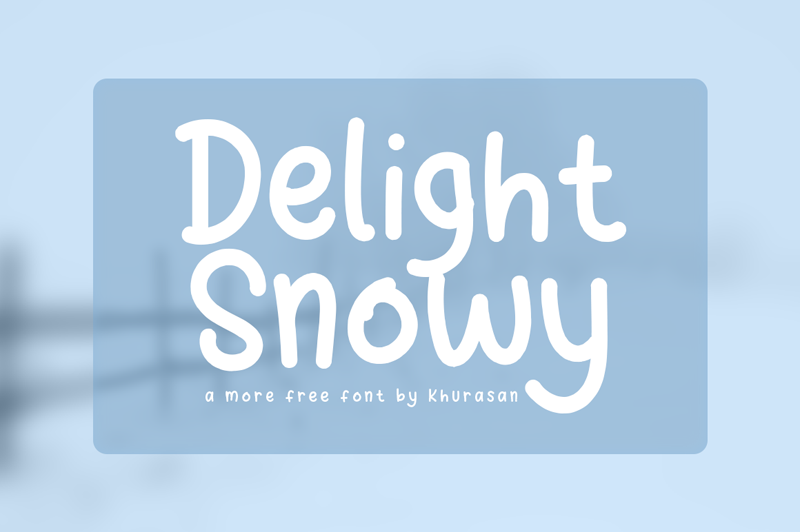
A fun, whimsical font that makes every design feel like a winter wonderland. Use it in seasonal greeting cards to add that fresh snowfall feel.
Winter Wonderland
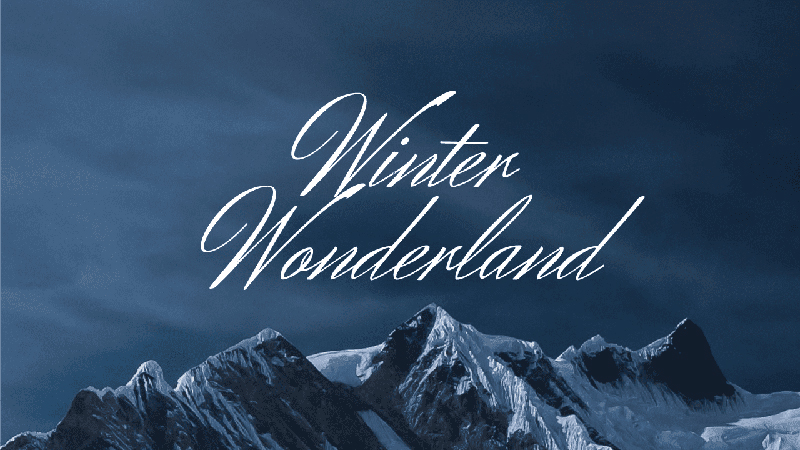
This typeface adds an icy touch to any project, making it ideal for Christmas-themed prints. Each letter looks as if it’s covered in a fine layer of frost.
Minimalist Fonts
For a modern take, minimalist fonts can be the way to go. They provide a clean, stylish look without overwhelming the design.
Sleek Season
Perfect for digital projects like holiday announcements. Clean, simple lines make this a versatile choice.
Modern Joy
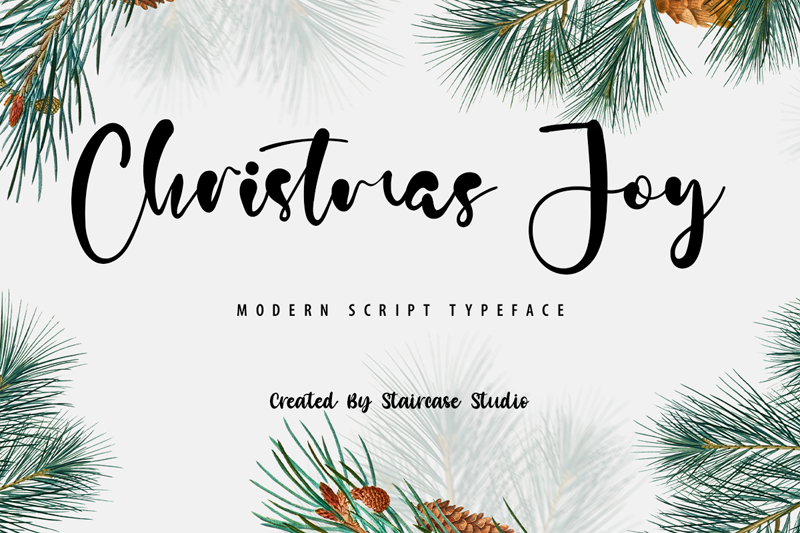
A serif font with a slight modern twist, great for holiday banners or Christmas invitations where clarity and style are paramount.
Font Pairings
Just like pairing wine with a meal, pairing fonts can elevate your design work. Combining the right fonts can make your holiday project stand out.
Complementary Pairs
To create a balanced and engaging design, it’s essential to use fonts that complement each other.
Joy and Peace
Pair a decorative Christmas font with a subtle serif font. This creates a festive yet sophisticated look. For instance, use a Merry Christmas font like “Holiday Delight” for headlines, and a simple serif font for body text.
Contrast Matters
Creating contrast in your design can highlight the important elements and guide the reader’s eye where you want it to go.
Fun and Functional
Combine a fun, whimsical font with a straightforward sans-serif font. This works well in festive banners or holiday invitations to draw attention to key details.
Practical Considerations
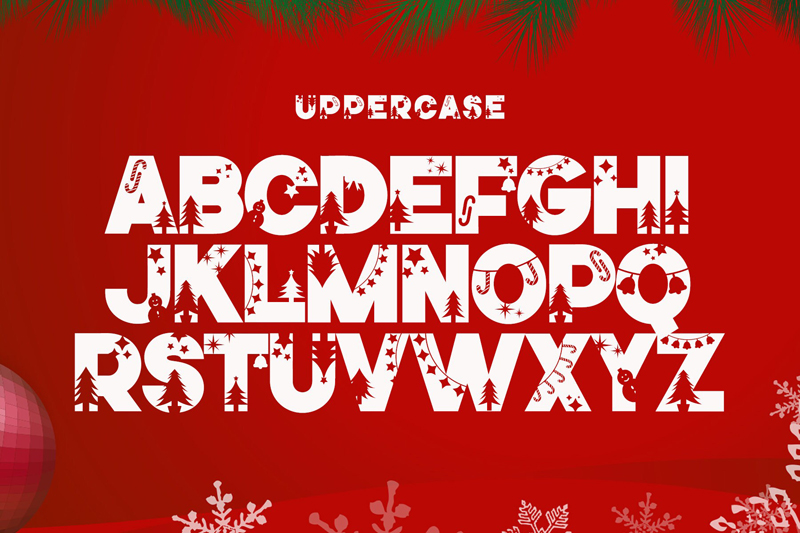
While creativity is crucial, practicality makes your work functional and accessible.
Readability
Readability is a top priority, especially in designs meant to communicate important information. Avoid overly intricate fonts for body text; reserve them for headings and decorative elements.
Size and Spacing
Ensure your Christmas card fonts are legible at various sizes. Adjust line spacing to avoid a cluttered look, ensuring clarity in your design.
Compatibility
Check the font’s compatibility with different platforms and mediums. Fonts should look good both in print and on digital screens.
Cross-Platform Usability
Utilize fonts that maintain their charm and readability across different devices. Platforms like Canva and Etsy offer versatile options that are universally appealing.
Download and Licensing
Last but not least, understanding the licensing of the fonts you choose is crucial.
Free vs. Paid
Some fonts come with specific usage restrictions, so it’s essential to know whether you’re using free resources or paid options.
Free Resources
Websites like DaFont and Font Squirrel offer numerous free, high-quality fonts. Ensure you read the licensing agreements carefully.
Paid Options
Paid fonts generally come with fewer restrictions and better support. Creative Market and MyFonts provide a plethora of elegant, professional options.
FAQ On Christmas Fonts
What makes a font suitable for Christmas?
A font suitable for Christmas captures the festive spirit. Think decorative elements, holiday motifs, or a cozy feel.
Fonts like retro Christmas fonts and elegant Christmas fonts often include playful curves and festive graphics, perfect for Christmas cards and holiday greeting banners.
Where can I find high-quality Christmas fonts?
High-quality Christmas fonts can be found on platforms like Google Fonts, Adobe Fonts, Creative Market, and DaFont.
Each offers a variety of options, from handwritten fonts to elegant Christmas fonts. These sources provide plenty of festive typography selections.
Can I use Christmas fonts for commercial projects?
Yes, but always check the licensing. Font Squirrel and Creative Market often offer both free and commercial options.
Ensure you’ve read the licensing agreements so you can use them for Christmas-themed prints or holiday banners without infringement.
How do I pair Christmas fonts effectively?
Pairing involves combining complementary fonts. Use a decorative Christmas font for headers and a simple serif or sans-serif for body text.
Think elegant Christmas fonts with a straightforward font to balance flair with readability for holiday announcements.
Are there free resources for Christmas fonts?
Absolutely. Websites like DaFont, Google Fonts, and Font Squirrel offer numerous free fonts. Always read the licensing terms to ensure you can freely use elegant Christmas fonts, candy cane fonts, and other decorative options for your projects.
How do I choose a font for digital Christmas cards?
For digital Christmas cards, choose fonts that look good on screens. Canva and Adobe Fonts offer festive banners and holiday invitation options specifically designed for digital use. Look for decorative Christmas fonts that maintain clarity even at smaller sizes.
What fonts work best for Christmas invitations?
For Christmas invitations, you’ll want a blend of elegance and readability. Elegant Christmas fonts and calligraphy fonts work well.
Google Fonts and MyFonts offer sophisticated, versatile choices ideal for creating memorable Christmas invitations.
How do I make sure my Christmas fonts are readable?
Ensure readability by choosing fonts with clear letterforms, especially for body text. Adjust size and spacing if needed.
Avoid overly intricate decorative Christmas fonts for large text blocks. Clarity is crucial for holiday announcements and seasonal greeting cards.
Can I customize Christmas fonts?
Yes, many software programs like Canva and Adobe Illustrator allow customization of fonts.
You can tweak snowflake fonts, handwritten fonts, and other options to suit your specific design needs, giving a unique touch to Christmas-themed prints or holiday invitations.
What are some underused Christmas fonts?
Underused Christmas fonts can include winter fonts like “Snowy Delight” or minimalist fonts such as “Sleek Season.
They provide a fresh, unexpected twist to your designs while still maintaining a festive feel, perfect for holiday banners or Christmas decorations.
Conclusion
Choosing the right Christmas font is more than just picking a pretty typeface; it’s about capturing the spirit of the holiday season in every letter. Whether you’re crafting Christmas cards, holiday banners, or seasonal greeting cards, the perfect font can make all the difference.
Explore platforms like Google Fonts, Adobe Fonts, and Creative Market for a wide range of decorative Christmas fonts and calligraphy fonts. Dive into options like retro Christmas fonts, snowflake fonts, and elegant Christmas fonts to find what resonates with your project’s unique needs.
Remember to consider readability and context. Utilize tools such as Canva and Adobe Illustrator to customize your fonts, adding a personal touch to your Christmas-themed prints.
From playful candy cane fonts to sophisticated calligraphy, each choice can enhance your holiday designs. With these tips, your projects will shimmer with festive charm, ensuring your work truly stands out this holiday season.